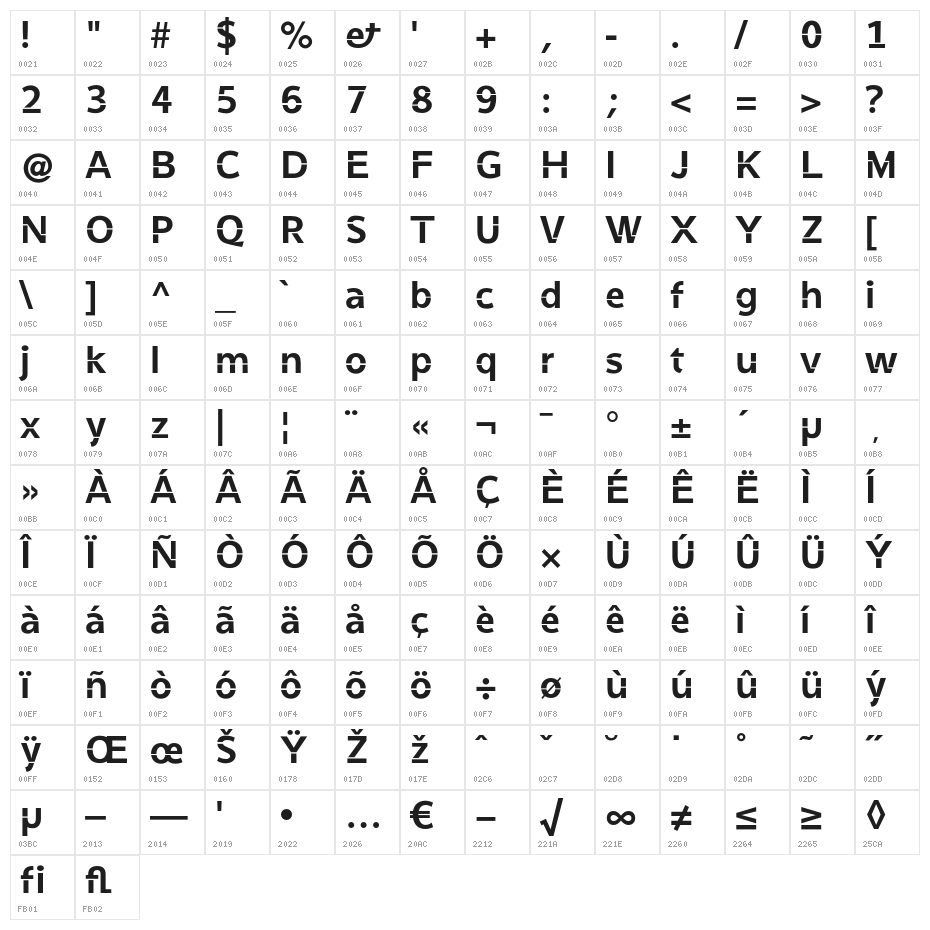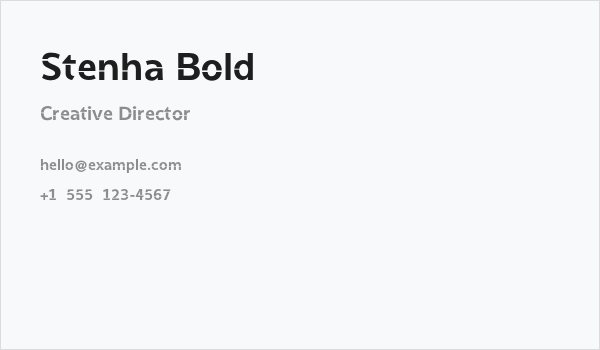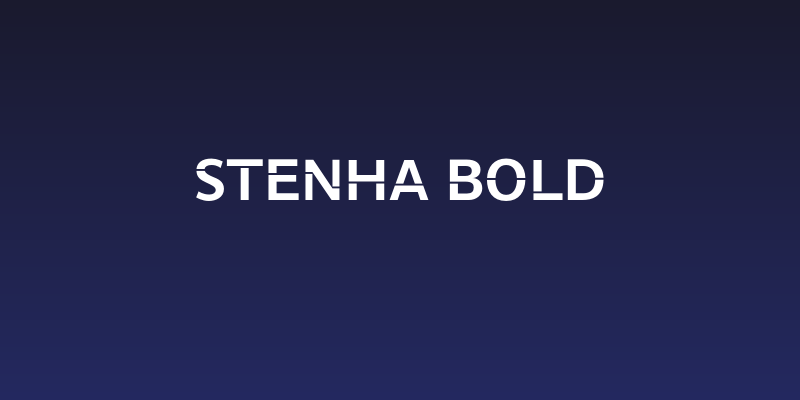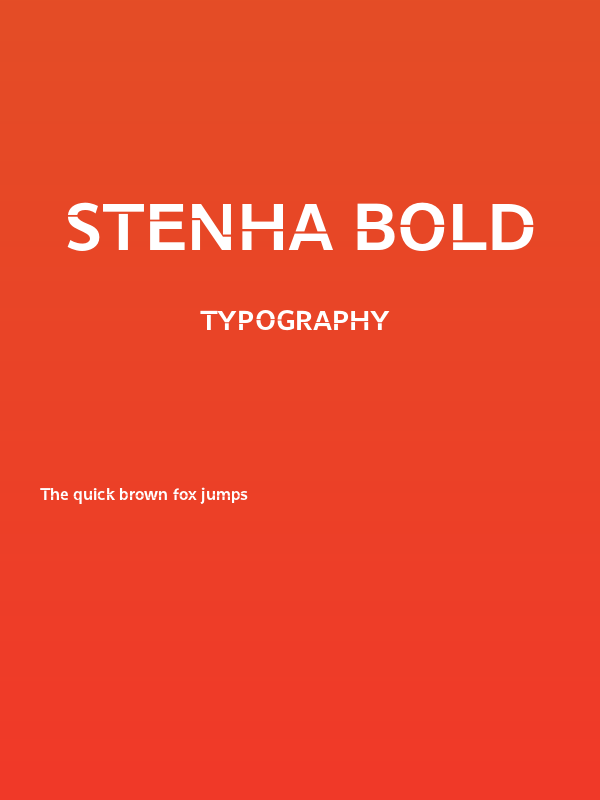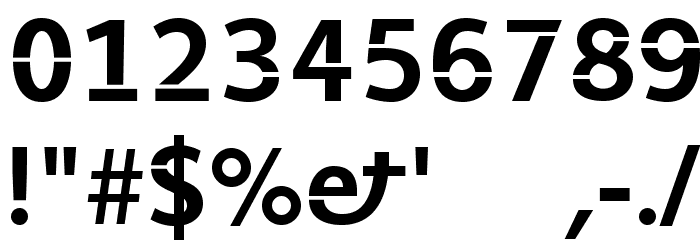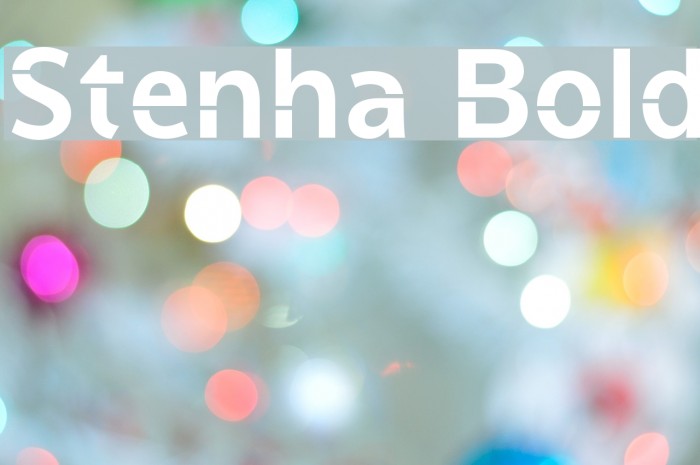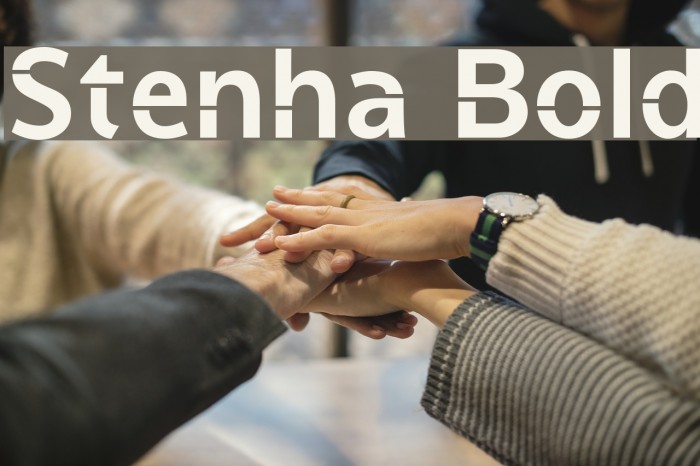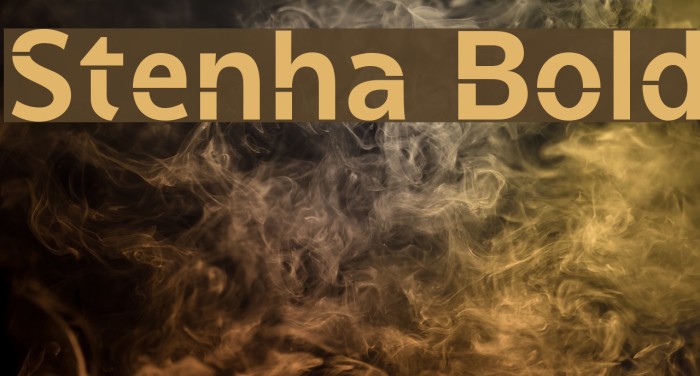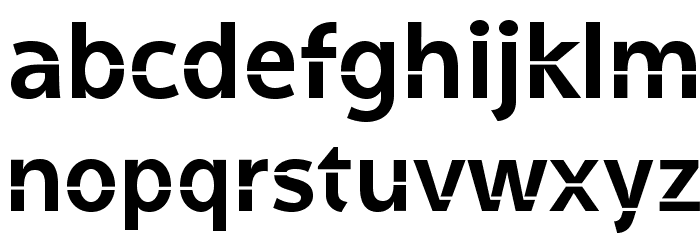
Stenha Bold Font
Stenha Bold Description
This font features a bold and modern sans-serif style with clean, geometric lines. The characters are well-defined with a consistent stroke width, providing a strong and assertive appearance. The uppercase letters are slightly taller than the lowercase, maintaining a balanced proportion. The numerals are clear and easy to read, while the special characters are distinct and harmonize well with the overall design. The font's boldness makes it ideal for making a statement, ensuring visibility and readability across various applications.
STENHA-BOLD UPPERCASE
STENHA-BOLD LOWERCASE
STENHA-BOLD OTHER CHARS